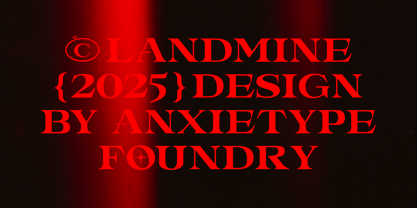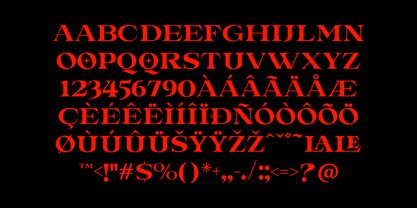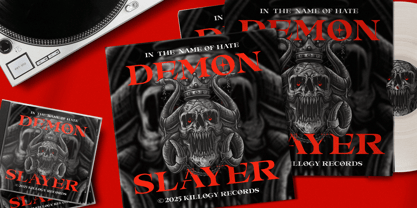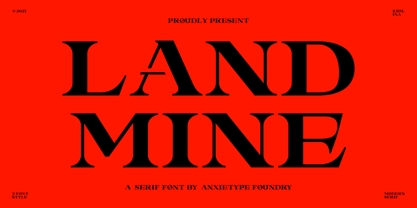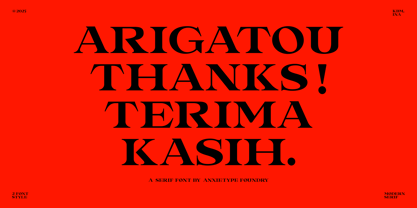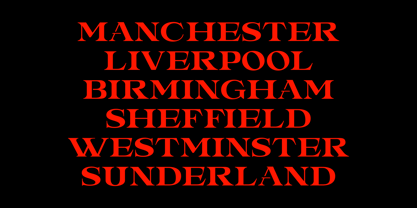
Landmine
by Anxietype Foundry
The Landmine Font Family was designed by Annas Rifky Anhar and published by Anxietype Foundry. Landmine contains 2 styles and family package options.
Welcome to the LANDMINE, a unique creation by Anxietype Foundry. This daring, expanded serif font is ready to catapult your design expectations into a whole new stratosphere. Perfect for a myriad of uses, it adds a bold touch to packaging designs and injects a delightful twist to film titles. Its expansive character makes it a standout choice for posters, allowing your message to be uniquely bold and unmissable. As a tribute to bands, it sets the right tone, exuding an aura of edginess and audacious boldness. Whatever your design requirements, LANDMINE FONT ensures that they stand out in style.